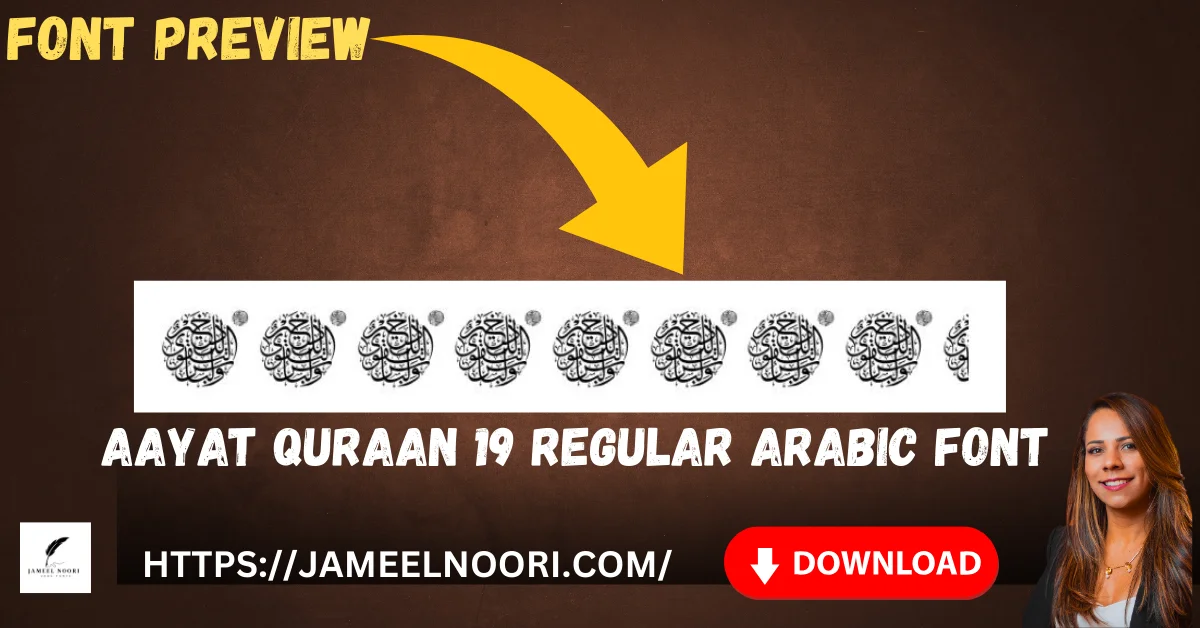
Aayat Quraan 19 Regular Arabic Font – High-Quality TrueType Font
Aayat Quraan 19 Regular Arabic Font ek high-quality TrueType font hai jo designers aur calligraphy lovers ke liye best choice hai. Is font ko ab tak 154468 times download kiya ja chuka hai aur 1122 users ne 4.30/5 rating di hai. Is font ka calligraphy style elegant aur readable hai, jo Urdu aur Arabic fonts ke enthusiasts ke liye ideal hai.
Why Choose Aayat Quraan 19 Regular Arabic Font?
Aayat Quraan 19 Regular Arabic Font choose karne ke bohot se reasons hain:
• Elegant aur clear design for Quranic text
• Perfect for graphic design projects, posters, and web use
Close-up of Aayat Quraan 19 Regular Arabic Font calligraphy style
Aayat Quraan 19 Regular Arabic Font with clear, elegant, and professional Arabic & Urdu design
What Makes Aayat Quraan 19 Regular the Best Arabic Font?
Aayat Quraan 19 Regular Arabic Font Urdu aur Arabic fonts me standout karta hai because:
• Professional calligraphy style
• Suitable for both digital and print projects
• Easy readability for Quranic text
Where Can You Use Aayat Quraan 19 Regular Arabic Font?
This font is highly versatile:
• Religious materials: Quran, books, and pamphlets
• Design projects: Posters, flyers, and social media posts
• Websites and blogs focusing on Urdu or Arabic content
Benefits of Using Aayat Quraan 19 Regular
• Enhances text readability
• Adds a professional look to projects
Tips to Maximize Usage of Aayat Quraan 19 Regular Arabic Font
• Pair with complementary fonts like Jameel Noori or Naskh style
• Avoid overusing in small text sizes
• Use bold and italic styles for emphasis
• Maintain proper spacing for clean presentation
Aayat Quraan 19 Regular Arabic Font ek complete and professional font hai jo Urdu aur Arabic fonts lovers ke liye perfect hai. Iska elegant calligraphy style, easy installation, aur high readability make it one of the best Arabic fonts for designers and Quranic projects in Pakistan. Agar aap apne design ya religious text projects ke liye top-quality font dhoond rahe hain, ye font aap ke liye ultimate choice hai.
What is Aayat Quraan 19 Regular Font?
A high-quality TrueType font designed for Quranic and Arabic calligraphy.